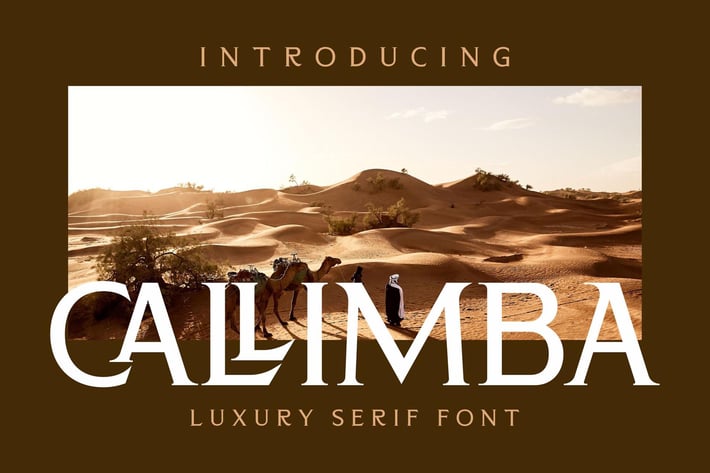
Callimba Serif Font
Calimba is a luxurious serif font designed with bold, classic letterforms and a high-end editorial feel. With its confident strokes and timeless elegance, Calimba brings premium sophistication to branding, headlines, and any design that needs an upscale, refined presence.
Luxury serif style with bold, confident character
High readability for headlines and logo design
Timeless letterforms with modern editorial polish
Perfect balance of elegance and strong impact
Luxury branding & identity systems
Editorial layouts & magazine titles
Premium packaging & label design
Posters, banners, and campaign visuals
Wedding stationery and elegant invitations
Crafted for modern luxury—where bold serif elegance makes every word feel premium.*